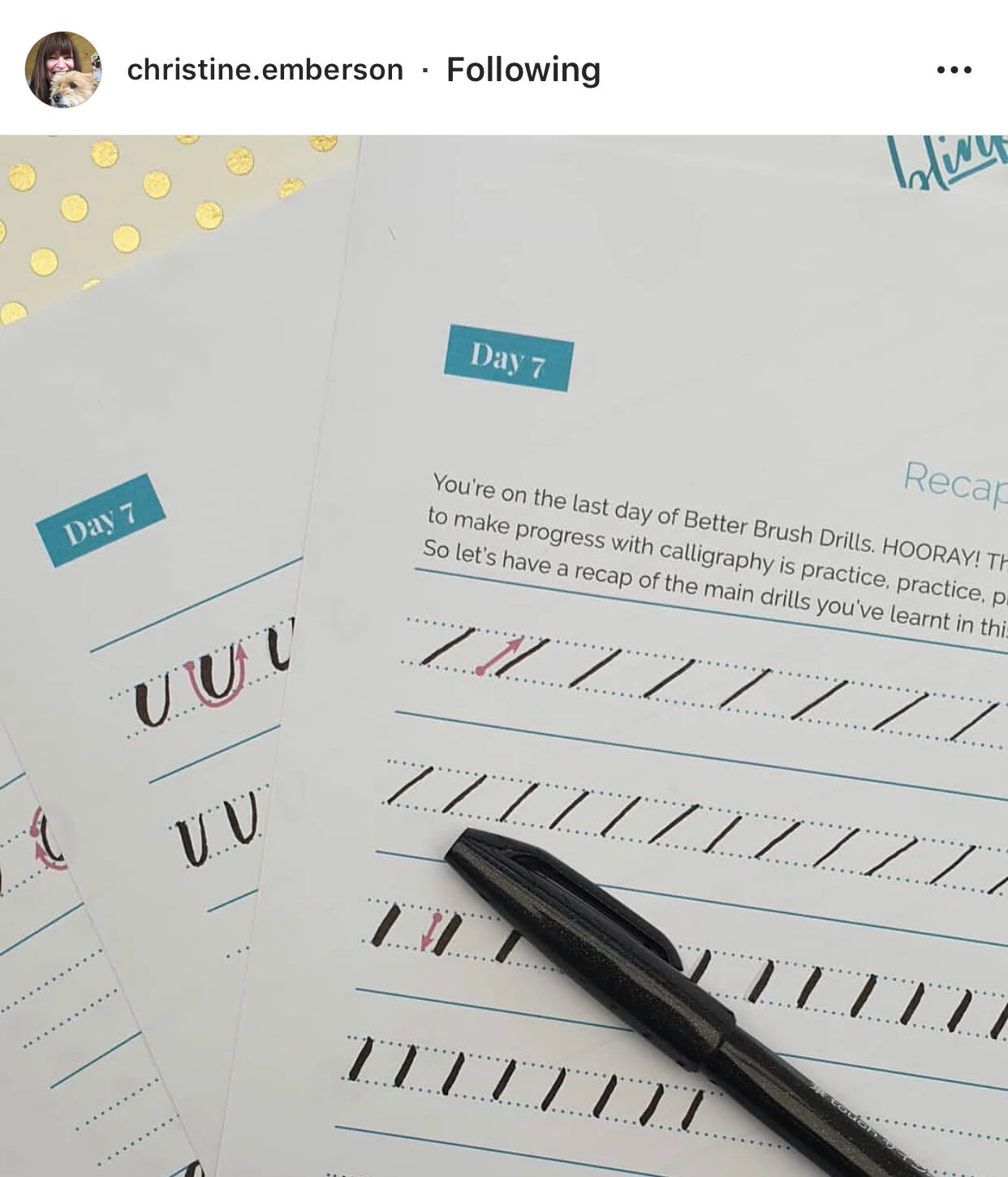
Unleash your calligraphy potential with the 7 Day Drills Challenge!
Dive into daily videos and worksheets to master basic strokes, stay motivated, and ignite your passion for calligraphy!
Prep your pens, beginners!
Have you been binge-watching mesmerising calligraphy videos on Instagram? Or staring at that stash of gorgeous pens you’ve totally been collecting (not hoarding, of course)?
Well, it’s time to put them to use!
Join the FREE 7 Day Drills Challenge
Let’s turn your calligraphy dreams into reality!
What’s included…
Calligraphy Worksheets
Printable and downloadable worksheets to practice daily drills, build muscle memory, and master essential calligraphy strokes
Video Tutorials
Over 2 hours of step-by-step video lessons introducing new drills each day, making it easy to follow along and perfect your technique
Online Community
Join a supportive community of fellow calligraphy enthusiasts to share progress, ask questions, and stay motivated
Direct Feedback
Receive personalized guidance and tips from me to refine your strokes and boost your confidence throughout the challenge
“It’s easy to get frustrated with your progress as a lettering newbie but it’s so important to start with the basics and nail these before you move on. The 7 Day Drills Challenge has been so helpful and I always return to it after a break.”
Sign up for the FREE challenge and unlock access to all the resources you need to make this calligraphy challenge a breeze.
Ready to kickstart your calligraphy adventure?
Join the 7-Day Drills Challenge today and master the basics - for FREE - alongside an amazing community of fellow enthusiasts!
“Milly has put together such a great little workbook! I wish it was here when I started lettering, because you need to get the basic strokes down first! She has also created a wonderful little community of beginners.”
This CHALLENGE is for you if you…
…are a total newbie ready to dive in
…want to pick up an awesome new hobby
…need a little spark to reignite your calligraphy mojo
…love learning alongside a supportive squad
…could use a nudge to stay consistent with practice
“The worksheets are highly detailed and break each stroke down into small, achievable chunks over the course of the challenge, with helpful daily video tutorials. As the challenge progresses, as will your confidence and skill level will too.”
I’ll let you in on a little secret… I have terrible handwriting too! Handwriting and calligraphy are different though, so even if your handwriting is awful, this challenge will help you learn how to create beautiful letters.
Calligraphy is simple a series of simple strokes that come together to form letters and in turn words. In fact most of the lowercase alphabet can be created using just 8 basic strokes (or drills!). So if you master these, when it comes to tackling those pesky letters, you’ll find it a breeze! That’s where this 7 Day Drills Challenge comes in. Throughout the challenge you will learn the main basic strokes, plus a few extra cheeky ones.
When you sign up, you will get access to daily worksheets and videos that will guide you through the drills. The challenge will be running from 1st February - 7th February, so you can learn alongside other students. This challenge is over 7 days, to encourage you to do a small amount of practice each day.
After you sign up to the challenge you will be able to access everything in the course hub via Teachable. This is an easy-to-use platform where you will be able to find everything in one place!
You don’t need anything super fancy or expensive. when you sign up, you’ll get access to my recommend supplies list, plus an exclusive discount code for Under the Rowan Trees.
Yes! I’ve broken down each day into bitesized worksheets, that only take 15 - 20 mins. The best way to get good at calligraphy is practice a small amount each day, rather than an hour once a week. That’s because it’s all about muscle memory! It’s also a super relaxing hobby, so perfect if you need to escape the stress of life.
Yes! I have laid out the worksheets so they are easy to follow along, so you can follow along using a separate piece of paper.